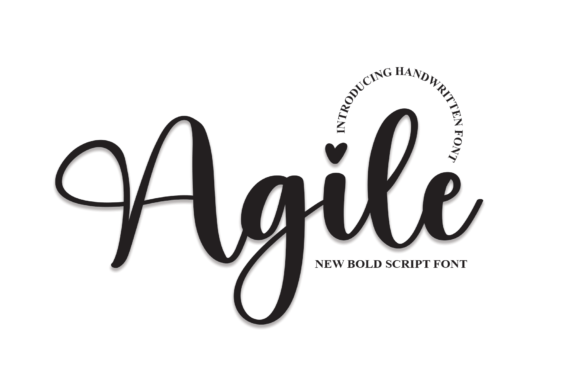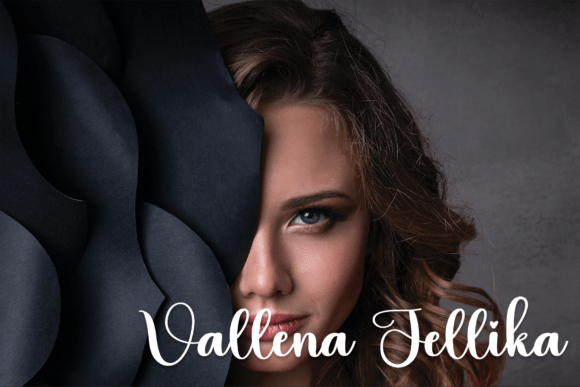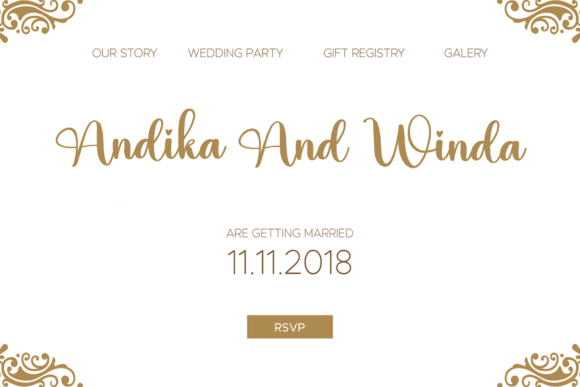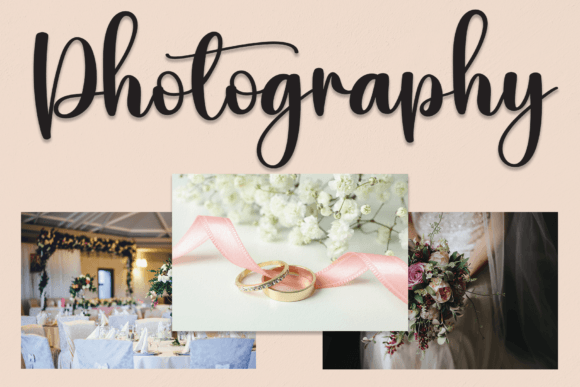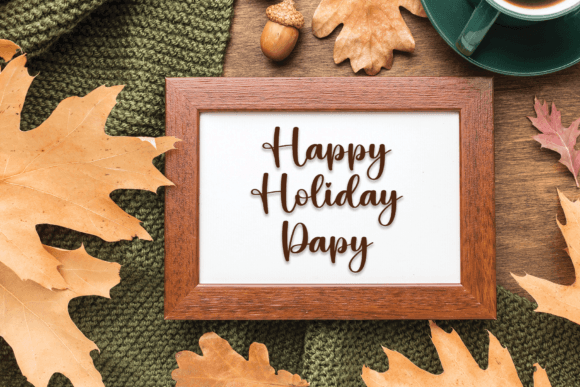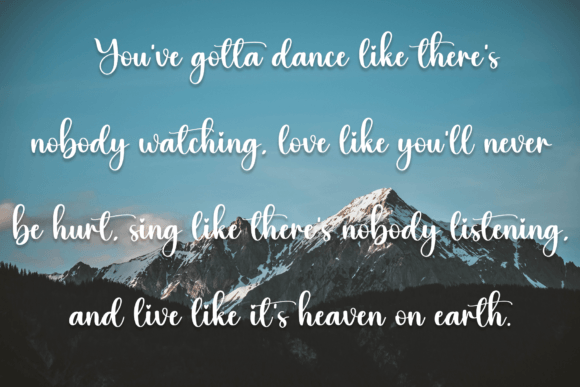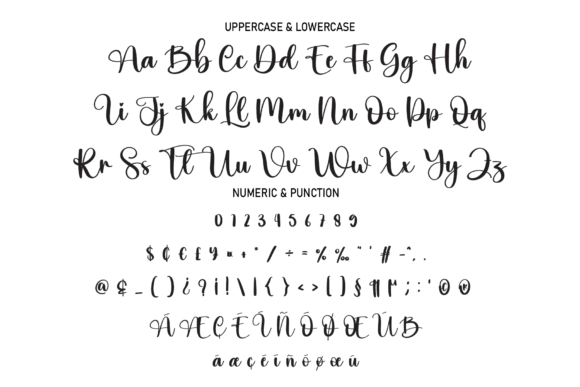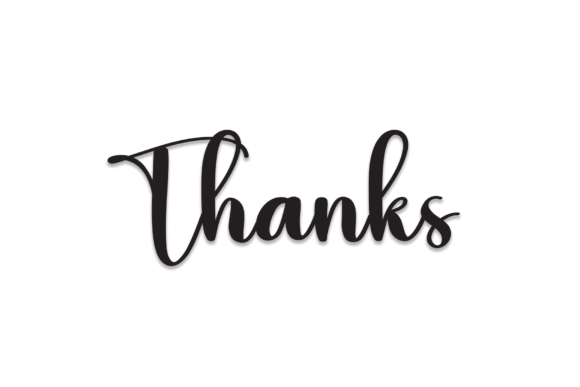
Agile Font
About Agile Font
Agile’s latest style letters bring a perfect blend of modernity and versatility, making them an impeccable choice for a broad spectrum of design projects. Whether you’re curating wall displays, crafting wedding invitations, designing social media post logos, creating advertisements, refining product packaging, developing product designs, fashioning labels, enhancing photography, imprinting watermarks, creating invitations, refining stationery, or any project that seeks a handwritten touch, these letters effortlessly introduce a contemporary and captivating aesthetic.
Within wall displays, Agile’s latest style letters have the transformative ability to turn spaces into visually dynamic showcases. Their sleek and dynamic design adds a touch of modern sophistication, creating an ambiance that is not only visually engaging but also contemporary and chic.
In the realm of wedding invitations, these letters inject a modern and stylish flair. The sleek script enhances the overall elegance of the invitation, setting a tone that is both contemporary and memorable for the celebration of love.
When utilized in social media, Agile’s letters seamlessly transition into iconic logos. Their adaptability ensures a harmonious integration into various digital platforms, capturing attention and leaving a lasting imprint on the audience.
Advertisements take on a fresh and dynamic appeal with Agile’s latest style letters. The sleek and contemporary design imparts a sense of modern flair to the content, making it more captivating and memorable.
In the realm of product packaging and design, these letters provide a modern and versatile touch. They elevate the overall aesthetics, transforming products into visually striking items that stand out on shelves. Labels, adorned with Agile’s latest style letters, exude a distinct and modern charm.
Photography is enhanced with the addition of these letters as watermarks, gaining a subtle yet impactful branding element. This unique touch reinforces brand identity and adds a layer of contemporary professionalism to each image.
Invitations and stationery projects acquire a modern and inviting touch with the handwritten taste of Agile’s latest style letters. The letters bring a sense of contemporary warmth and character, establishing a unique connection between the sender and the recipient.
In essence, Agile’s latest style letters serve as a powerful tool for designers and creators aiming to infuse modernity and versatility into their projects. Their adaptability ensures seamless integration into a diverse range of creative endeavors, making them an invaluable asset for those seeking a handwritten aesthetic with a contemporary and dynamic flair.